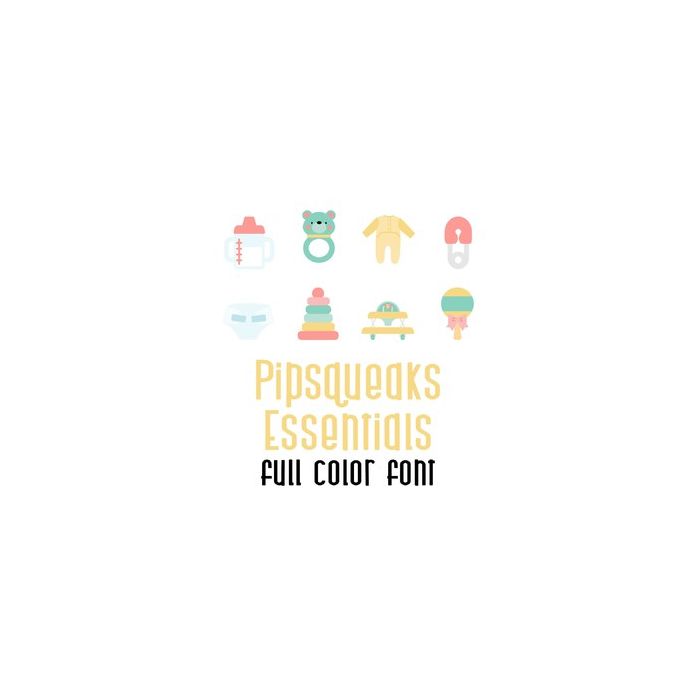
pipsqueaks essentials - full color font
A full-color font stores svg data inside an Open Type font file. This font will look black if not used in a program like Silhouette Studio which is compatible. Images can be pulled apart with some vector programs like Illustrator and cut with your cutting machine. This adorable full color doodlebat font features beautiful Autumn floral decor. Perfect for cards, crafts, gifts, decor, scrap book pages, planner stickers and more!